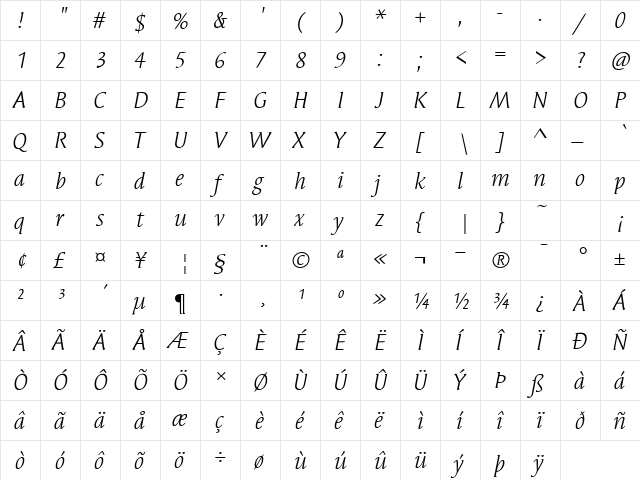
SyndorITC-Book BookItalic
Design Context for SyndorITC-Book Typeface
SyndorITC-Book offers clean, dependable letterforms without strong stylistic allegiance, making it a practical choice for designers who need flexibility. Its italic angle brings a sense of urgency and motion to the letterforms.
Pro Tip: Try SyndorITC-Book for annotation and caption copy alongside an upright companion — the contrast in angle creates a dynamic but ordered typographic system.